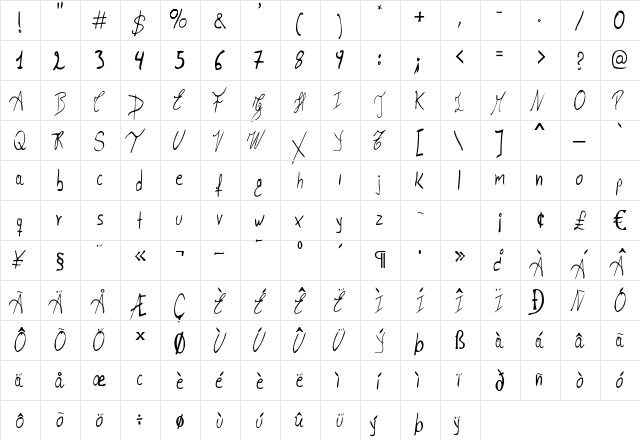
Toppo Giggio Hora de Dormir
| Designer | Juan Casco |
Design Context for Toppo Giggio Typeface
Toppo Giggio is a composed and adaptable typeface that performs quietly and consistently across a wide range of design contexts.